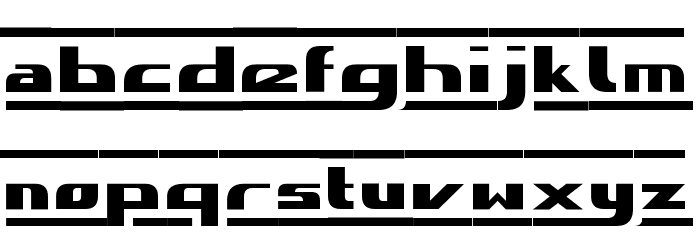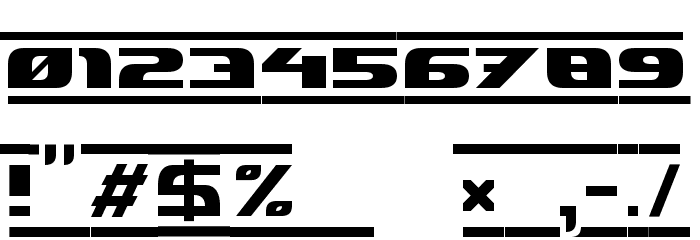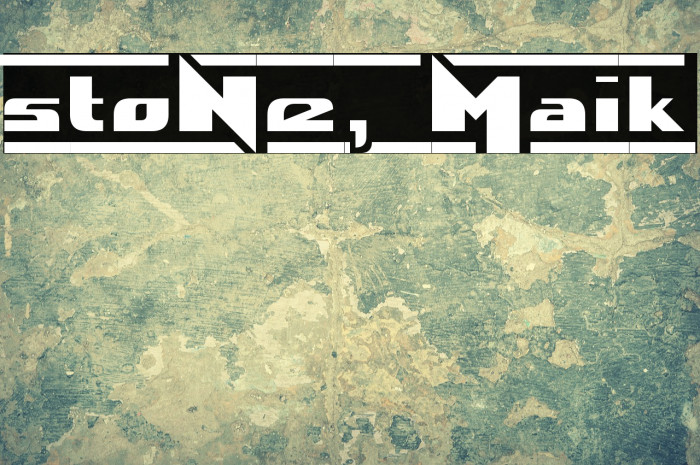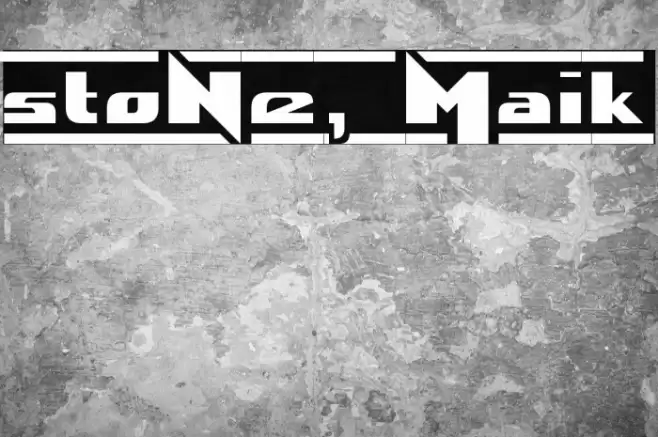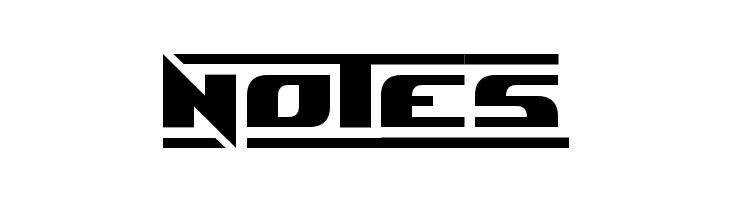
stoNe, Maik Font
This font exhibits a bold, futuristic style with a strong geometric influence. The characters are constructed with sharp angles and straight lines, giving it a distinctly modern and industrial feel. The uppercase letters are particularly striking, with unique cutouts and extensions that add a dynamic edge to the overall appearance. The lowercase letters maintain a consistent style, ensuring readability while still retaining the font's distinctive character. Numbers and special characters are designed to match the boldness and angularity of the alphabet, making this font suitable for a variety of creative applications.
A bold, futuristic font with geometric and angular design elements.
- Font: stoNe, Maik
- Proposed Projects: Ideal for sci-fi themed projects, technology branding, video game titles, and modern poster designs.
- Overall Style: Futuristic